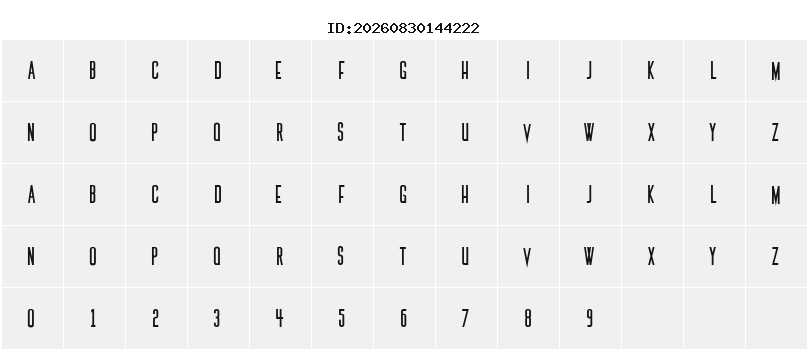
The Medic Preview
• Font Name: The Medic
• Full Font Name: The Medic Regular
• Designer: Viktor
About The Medic.ttf
The Medic.ttf is a modern, elegant sans-serif font designed for ultimate readability and visual harmony. Perfect for branding, headlines, web design, and print materials.